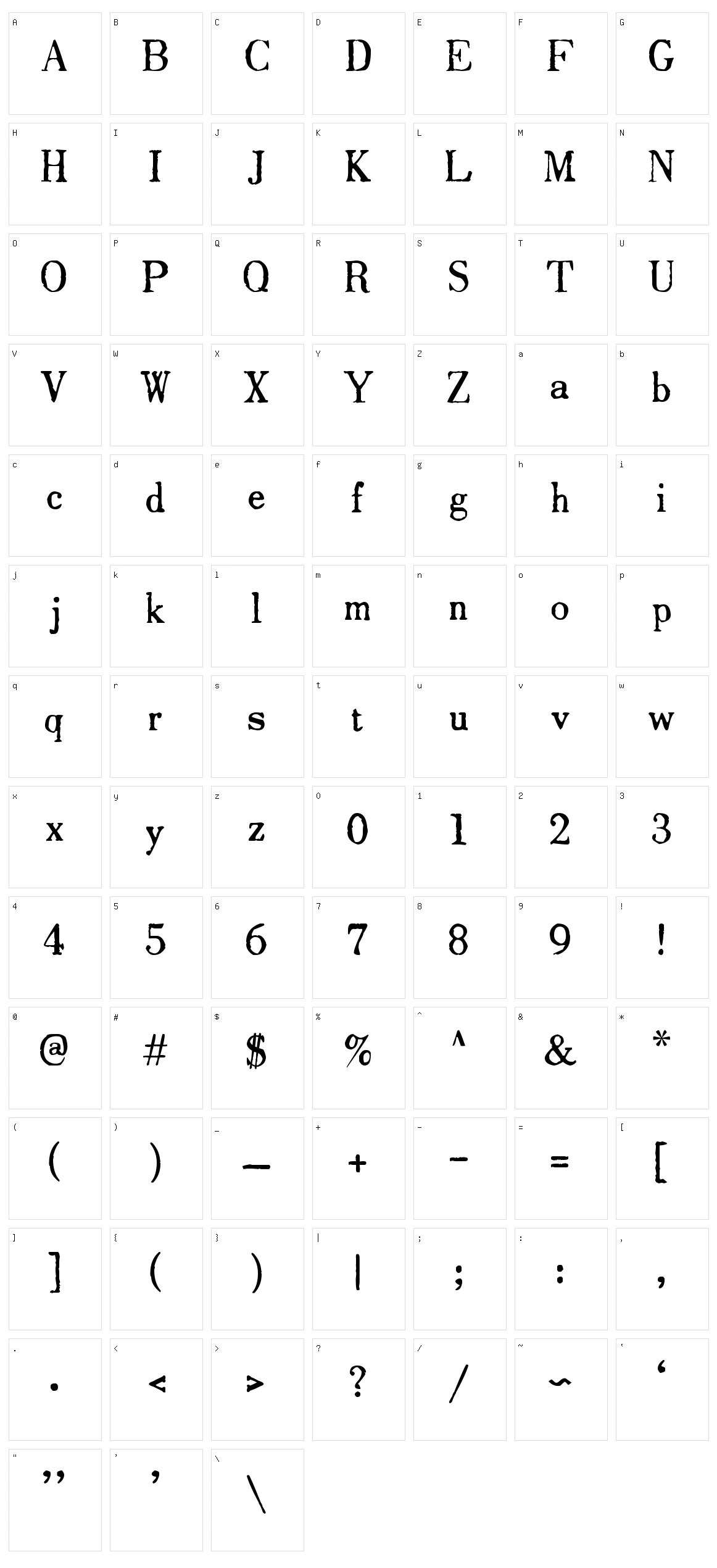
The free font Drukarnia Polska is carefully designed by Tomasz Skowroński, showcasing a thoughtful balance of creativity and usability and falls under the Eroded font style. When you download the ZIP file, it contains only 29.95 KB of font files, making it lightweight and quick to download. Please review the license details below to understand permitted usage and distribution rights. If license information is not available, we recommend using this font for personal projects only or contacting the author directly for commercial usage permissions.